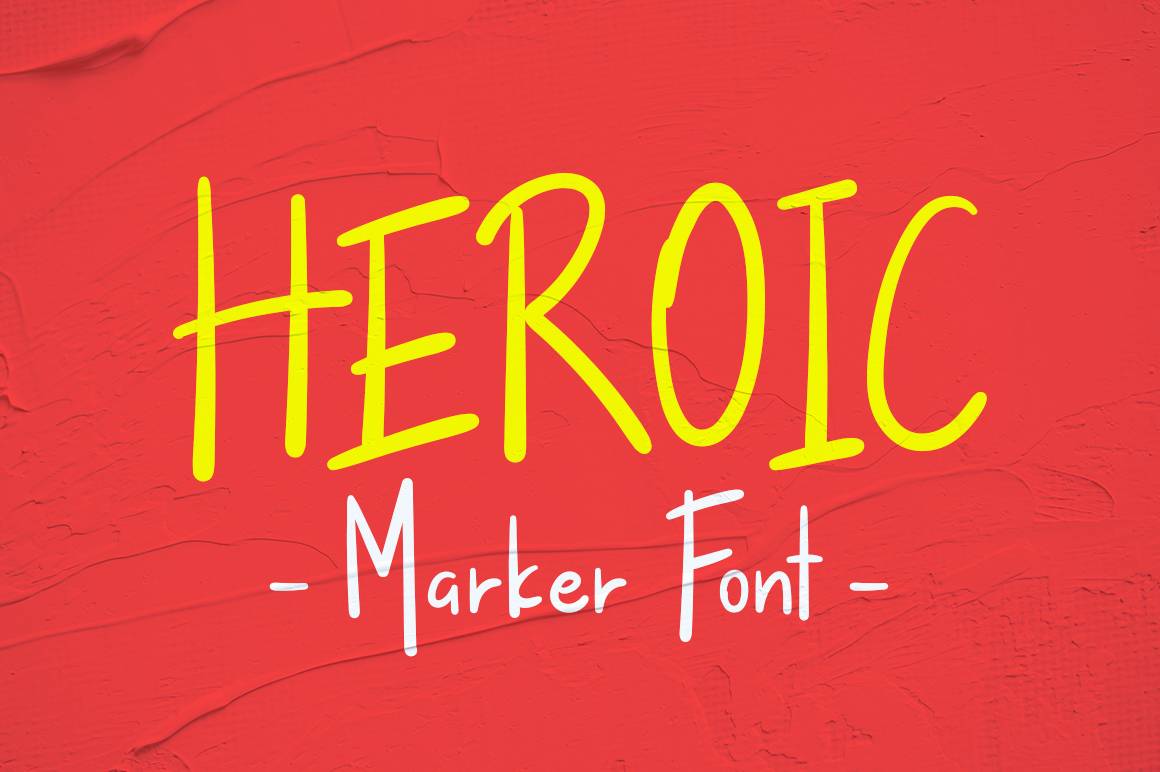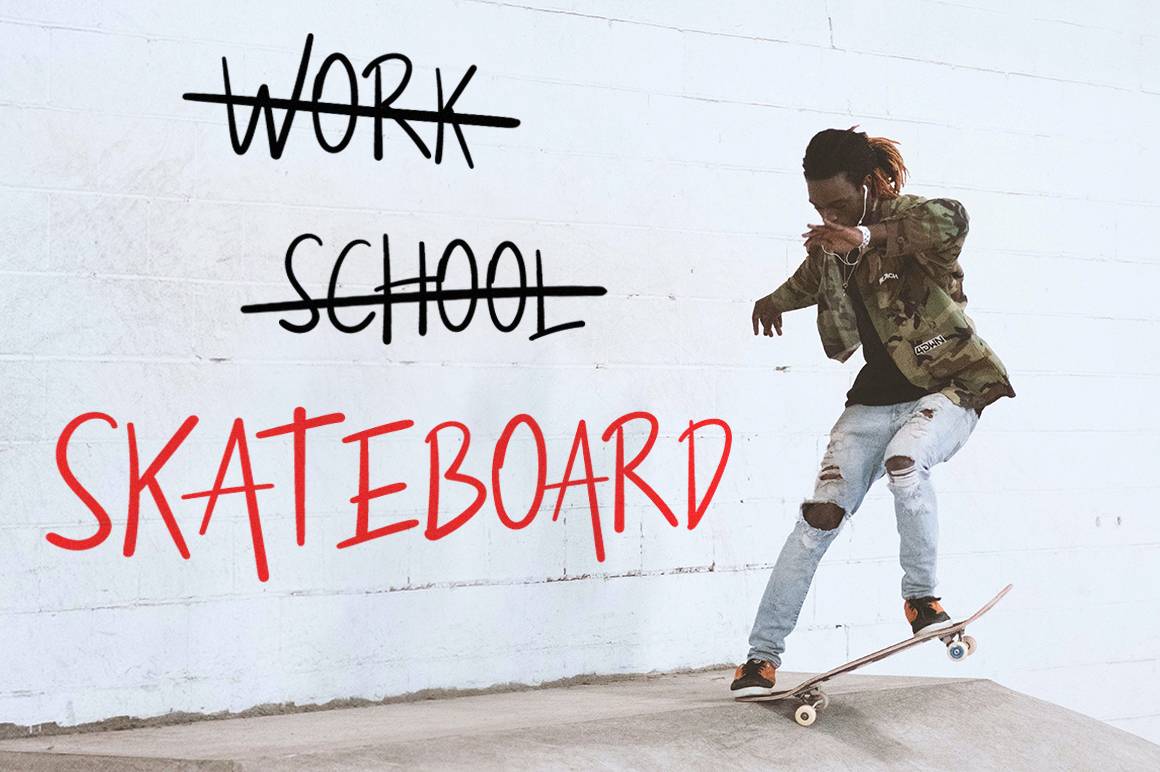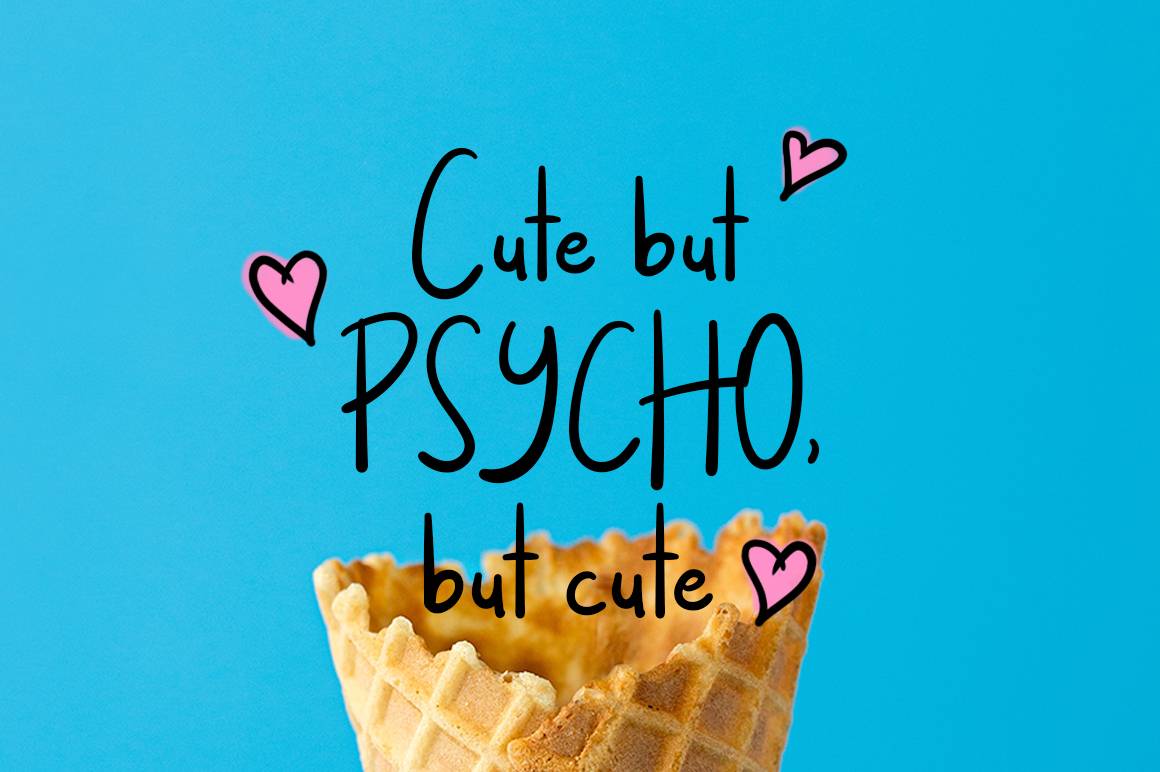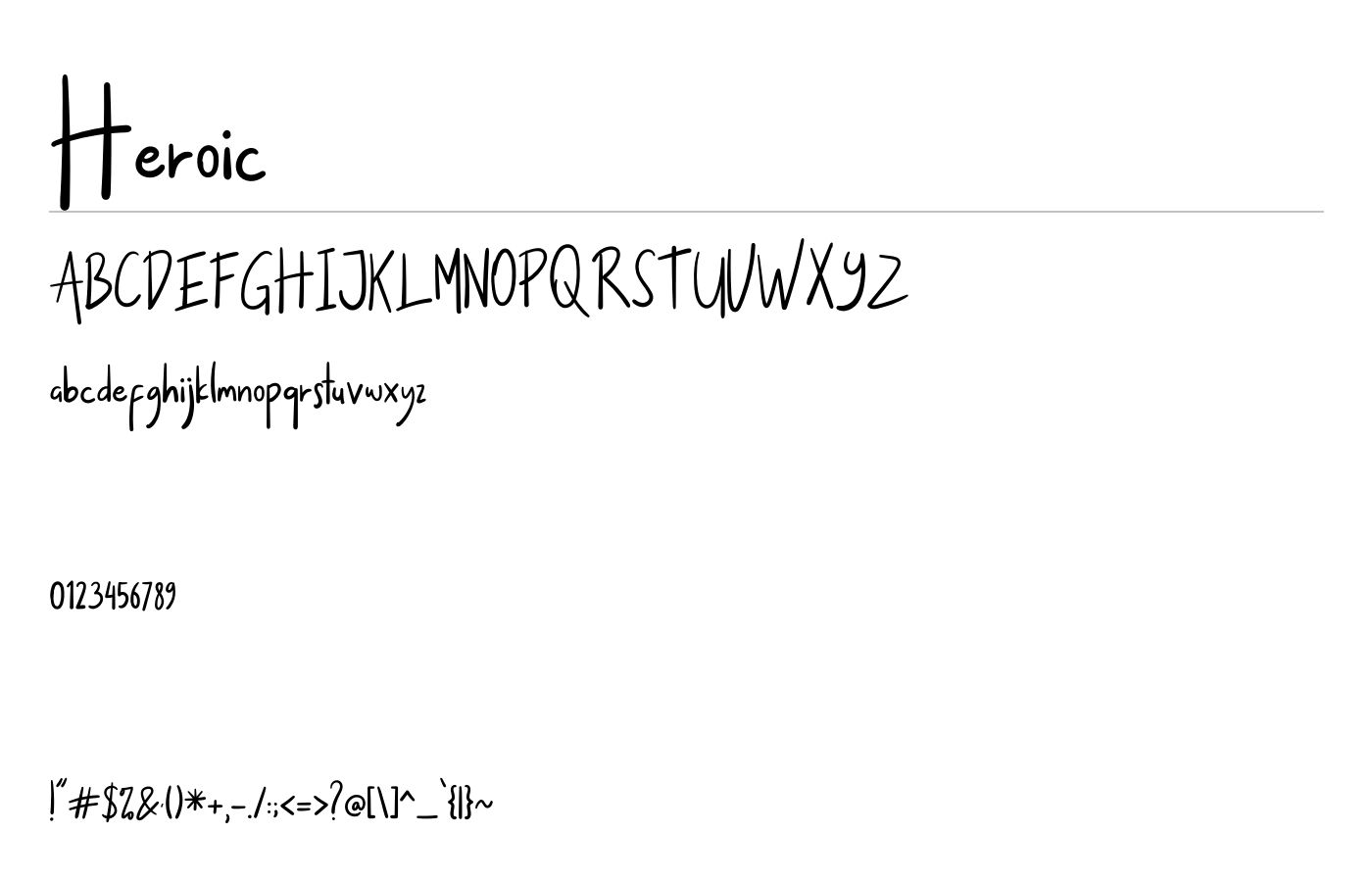
Heroic is a playful, handwritten sans serif font characterized by its tall, narrow letterforms and casual, organic strokes. With its lightweight, slightly irregular lines and clean, simple shapes, this font conveys a friendly and approachable vibe, making it perfect for informal branding, creative projects, and youthful editorial designs. Its legibility and charm work well in headlines, logos, and packaging where a personal, human touch is desired.
Heroic Font
About Heroic Font
| Font family | Heroic Font |
| Designer | Typesthetic Studio - Hamzah Muhamad Ihsan - Jakarta (INA) |